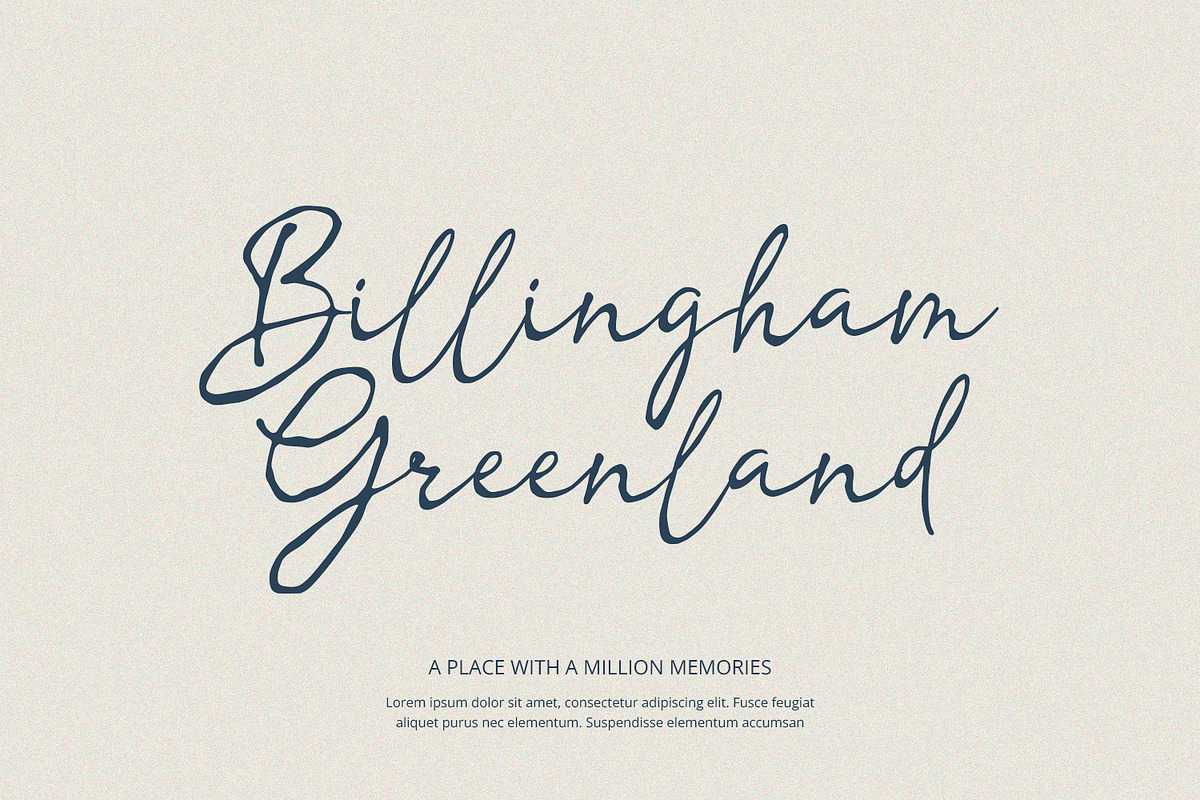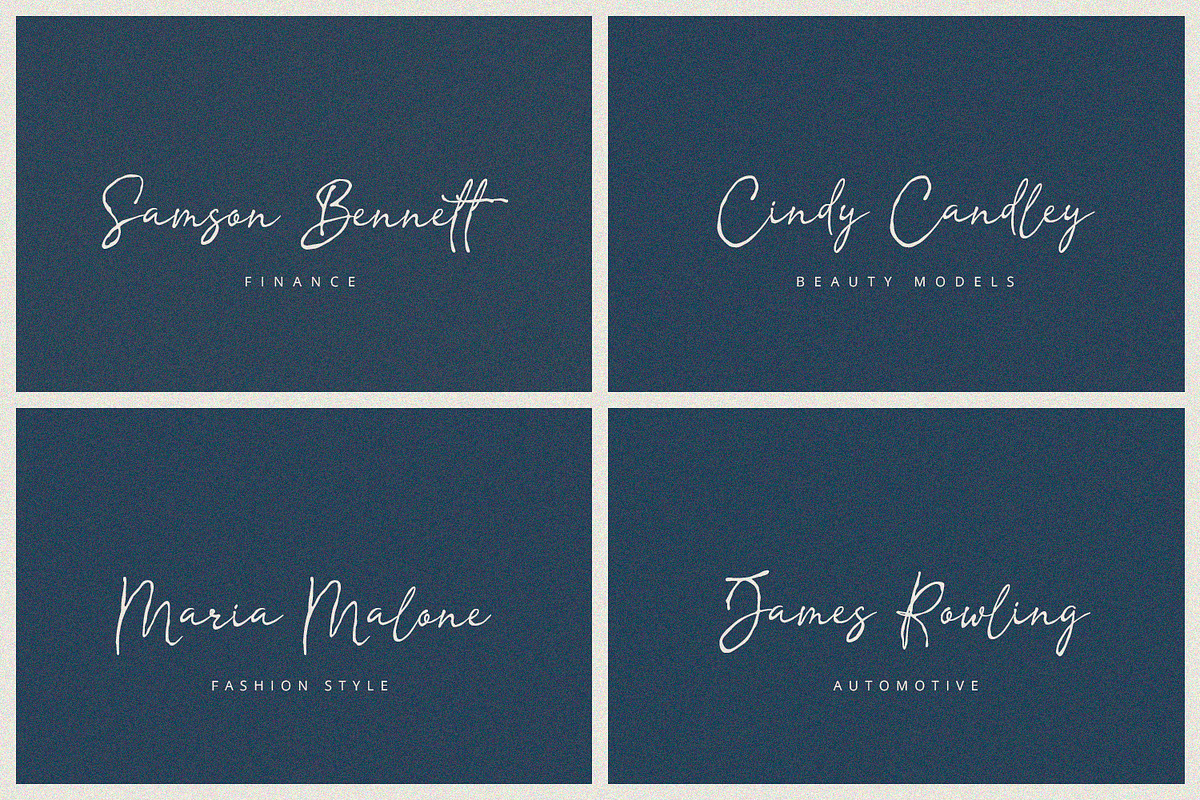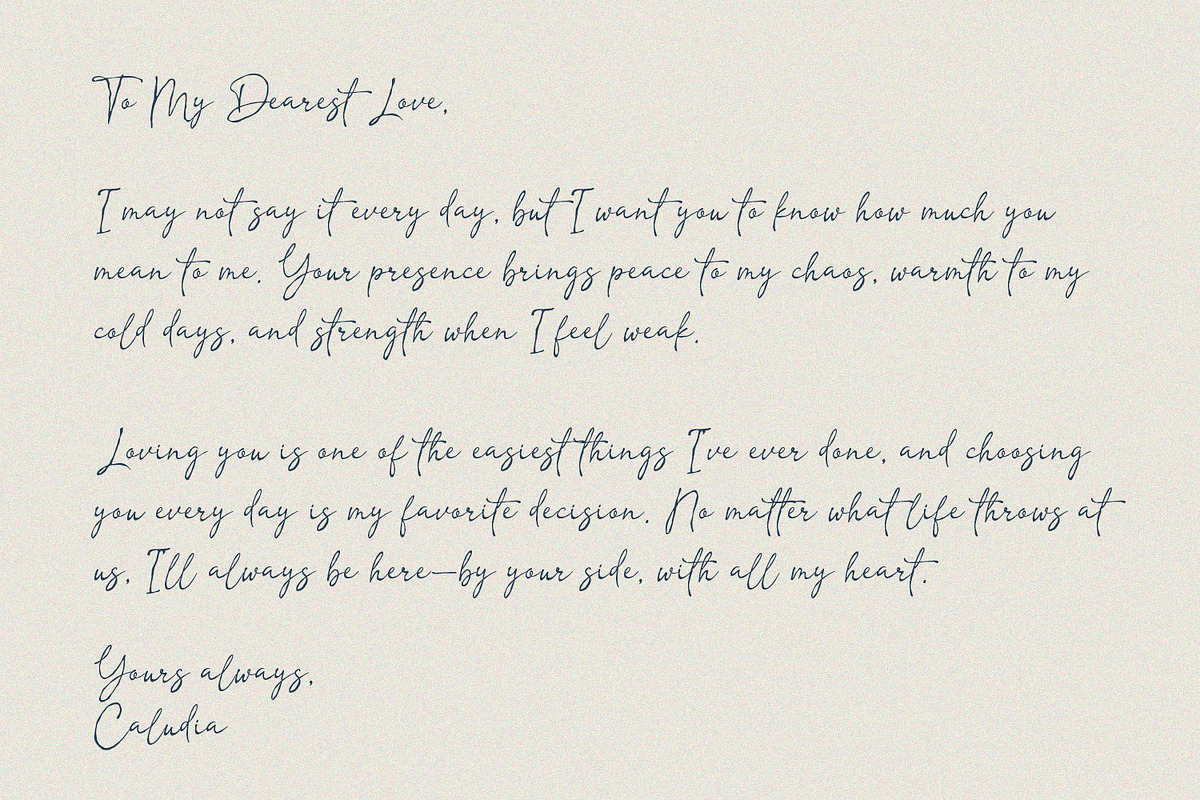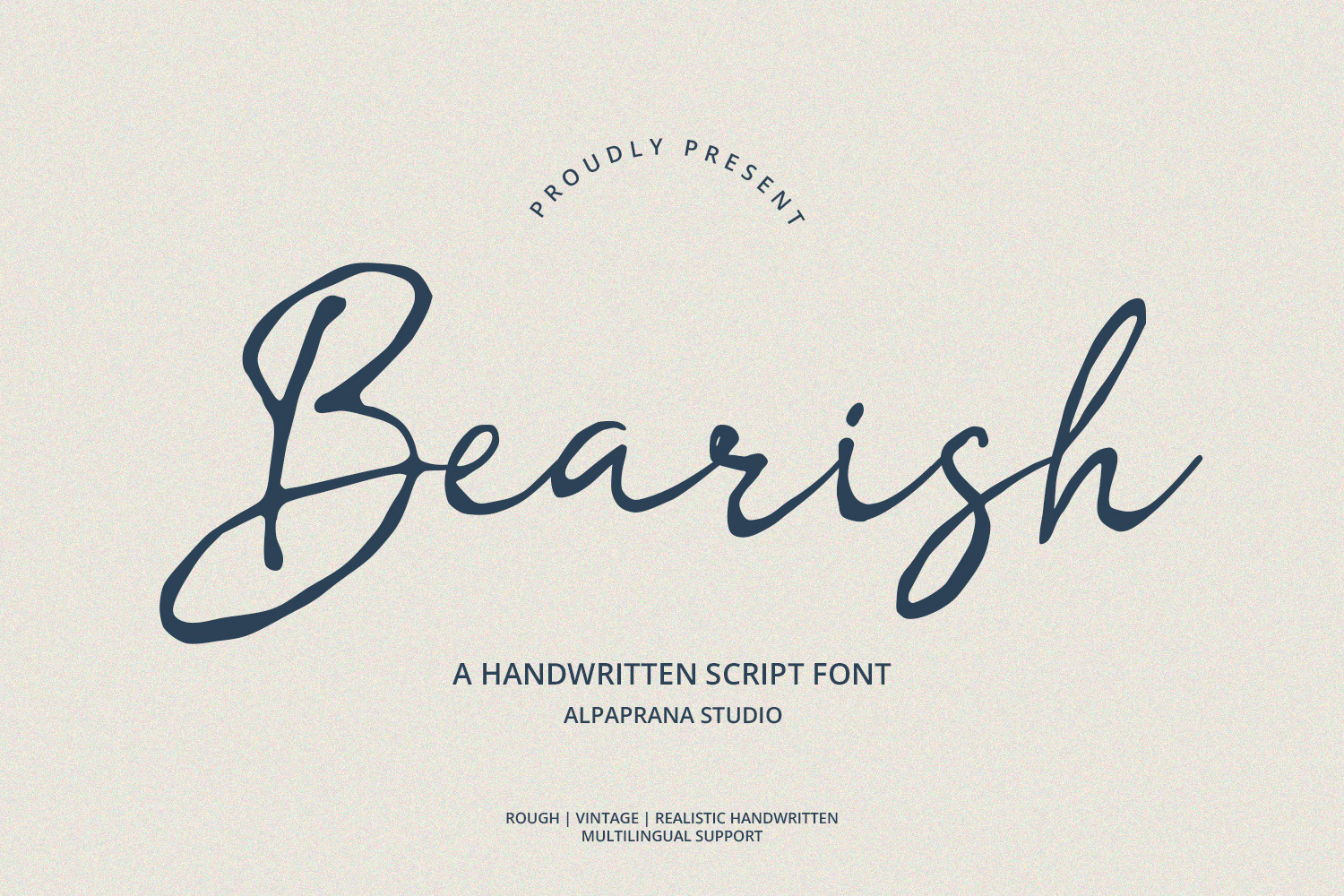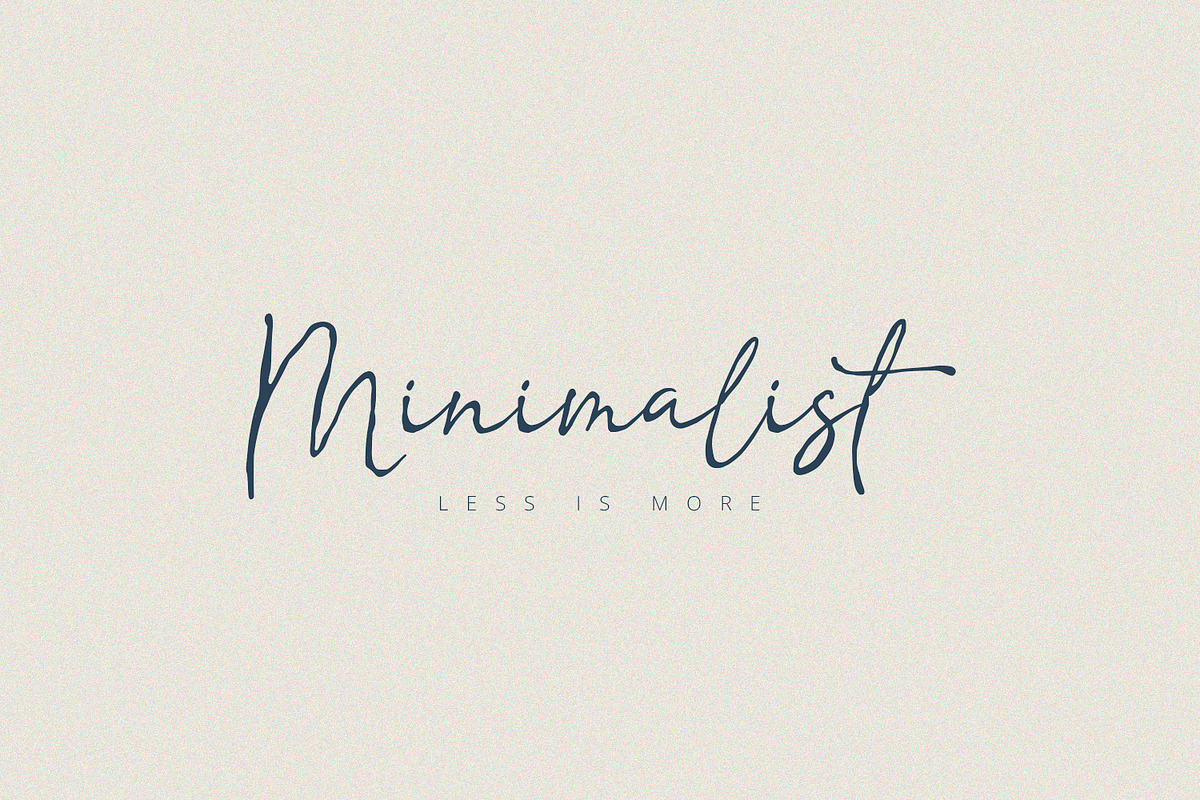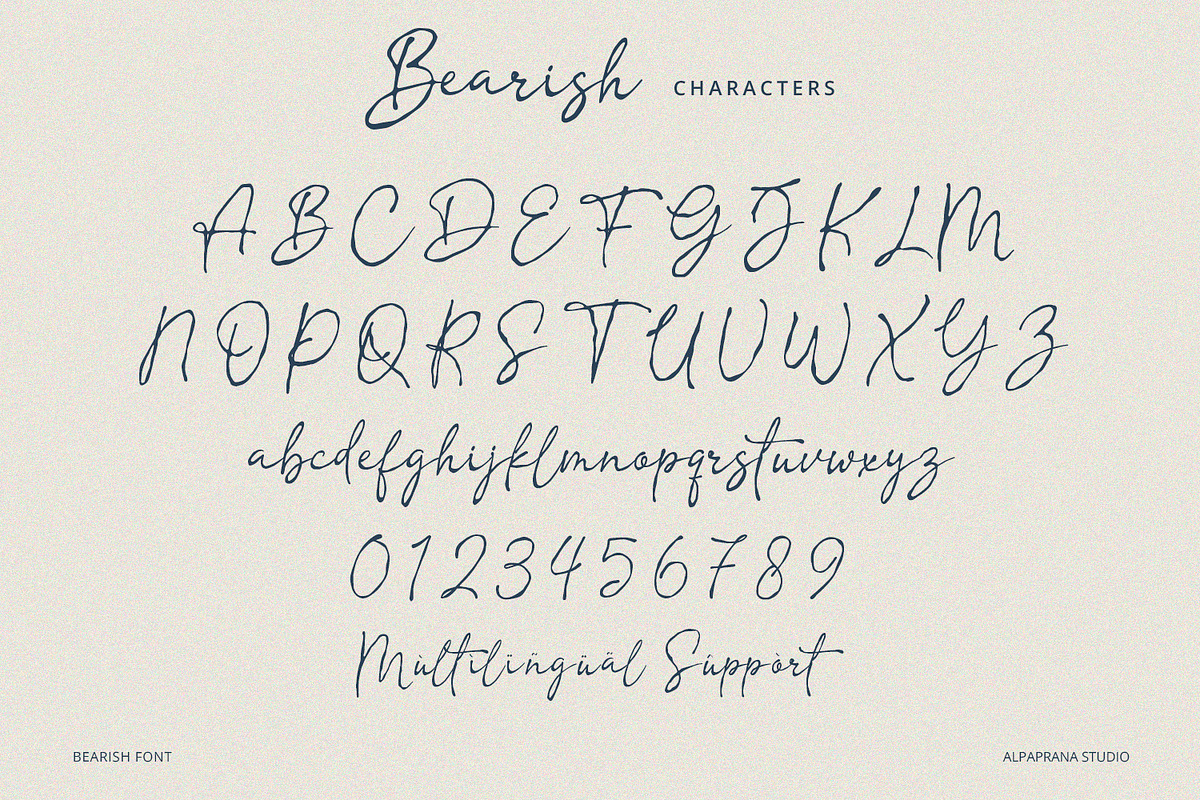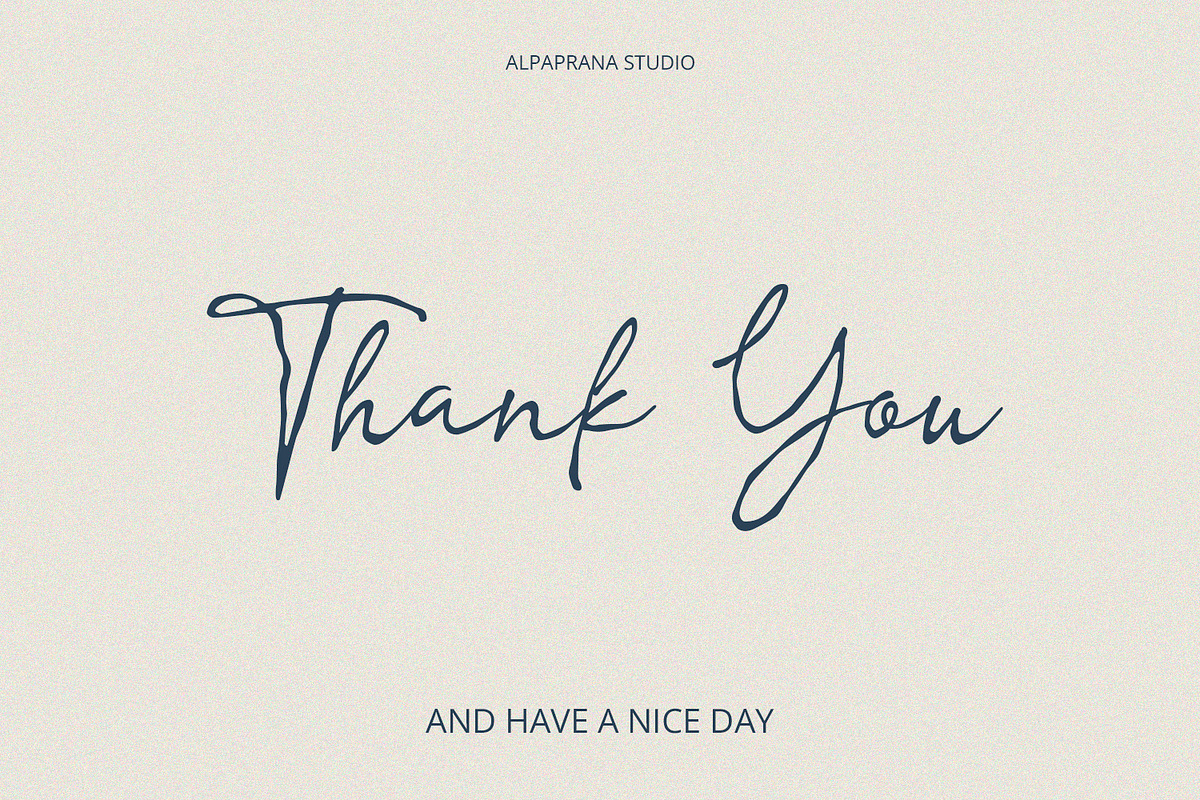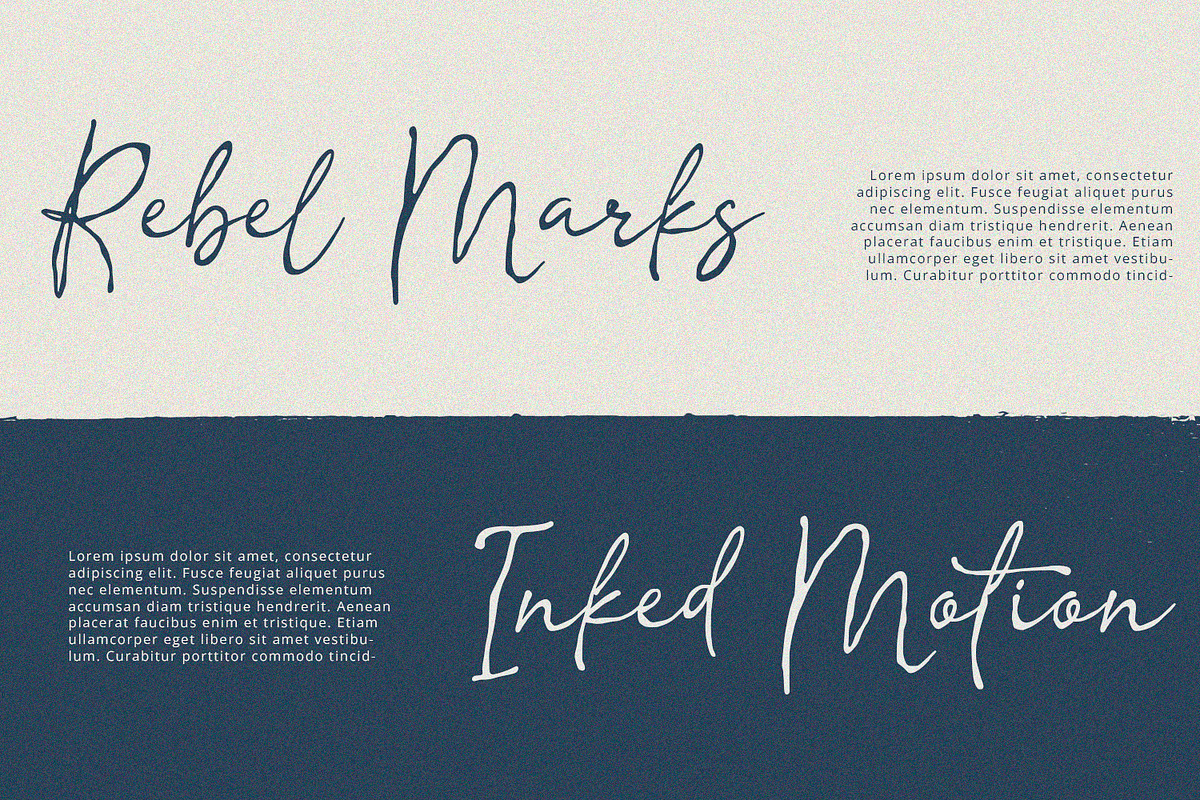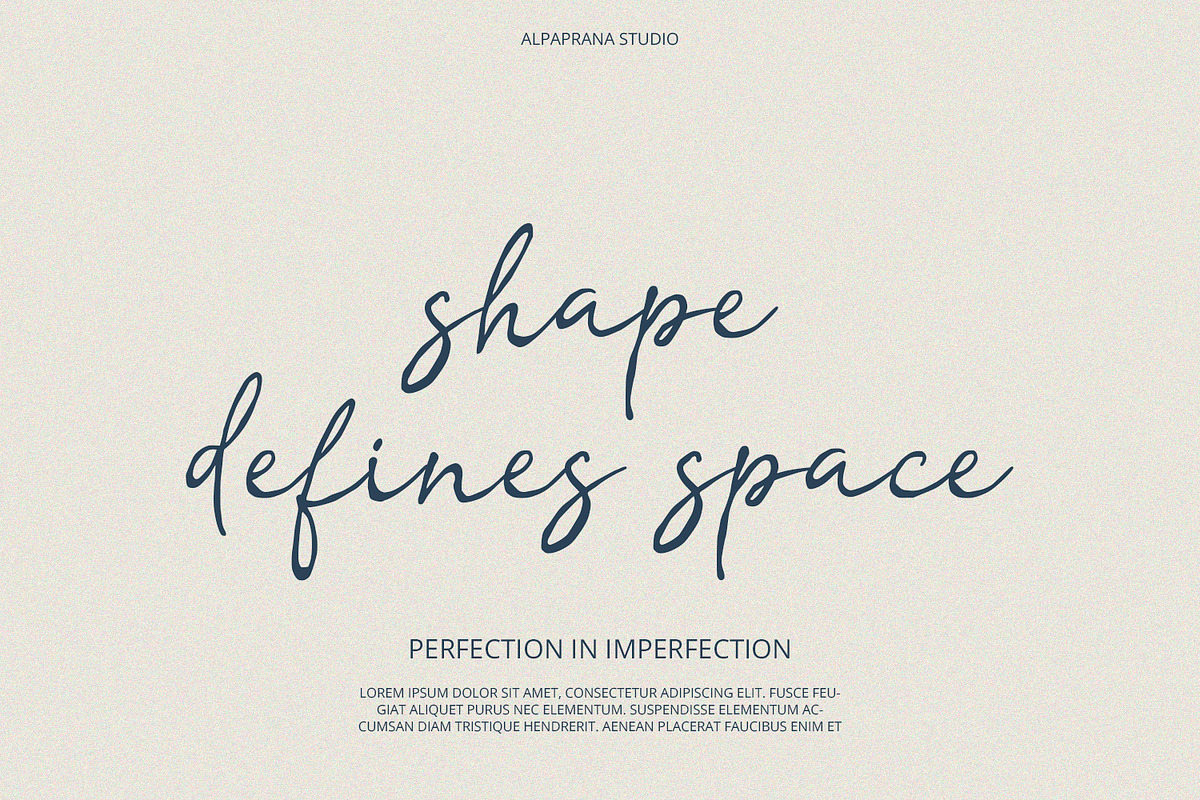
Bearish - Handwritten Script Font
Bearish is a handwritten script font with chic and classic feels. It will be perfectly used for Branding, Logo Design, Lettering, Logotype, Clothing, Poster, magazine, packaging, posters, shopping bags, t-shirts, book covers, photography, special events and other design project.